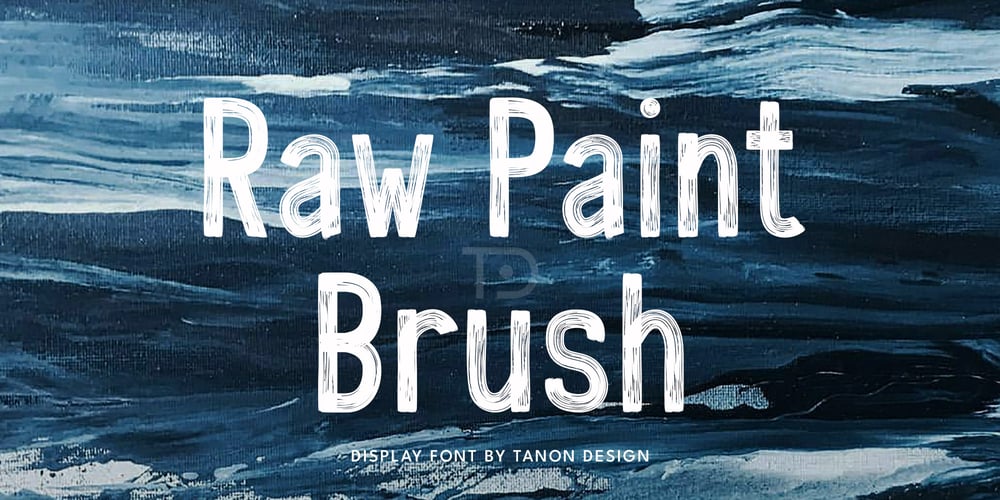
Raw Paint Brush
Raw Paint Brush font
Raw Paint Brush Font Family was designed by Tanonnat Kaeoket and published by Tanon Design. Raw Paint Brush contains 1 styles and family package options. Introducing RAW PAINT BRUSH font RAW PAINT BRUSH is a unique and artistic feel display brush font made for all your design. This font is perfect for any titles, product logo, Invitation card, product packaging, branding project, megazine, social media, wedding, or just used to express words above the background.This font also come with Multi-Lingual Support.Enjoy!